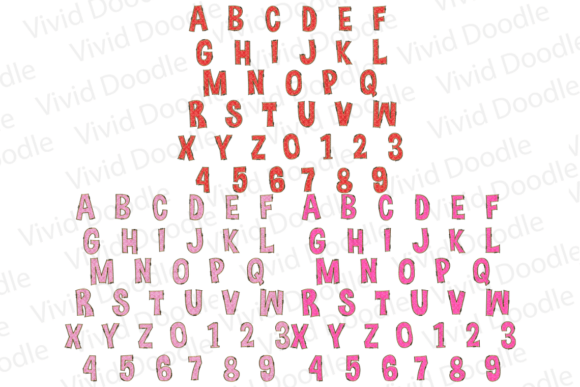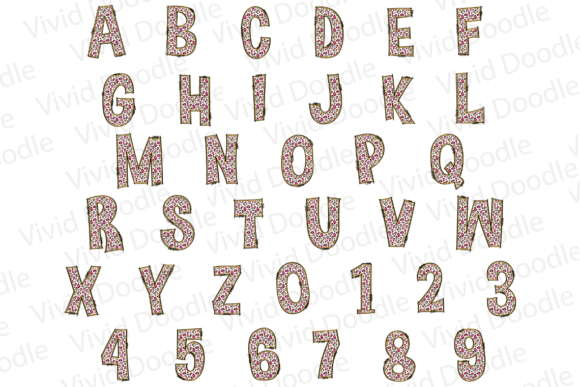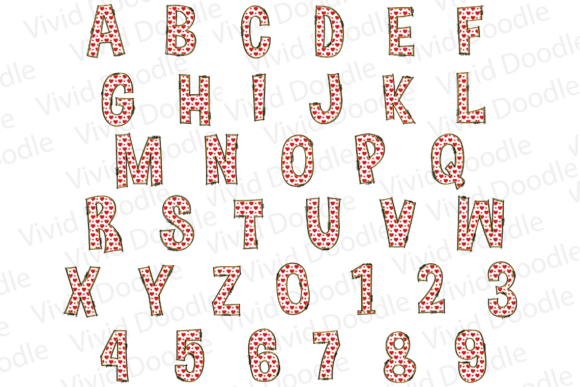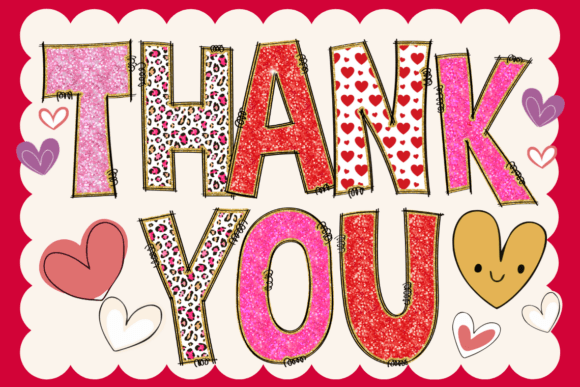
Sweet Valentine Font
Sweet Valentine Font is a delightful and romantic typeface designed to add charm and warmth to all your love-filled creations. With its whimsical curves and sweet details, this font perfectly captures the essence of Valentine’s Day and heartfelt moments.Ideal for crafting love letters, greeting cards, wedding invitations, posters, and DIY projects, Sweet Valentine Font brings an extra dose of sweetness to your designs. Its versatile style also makes it perfect for school projects, creative art, and graphic design. Let Sweet Valentine Font be your go-to choice for expressing love, joy, and affection in the most beautiful way possible. Celebrate the magic of love with every stroke!